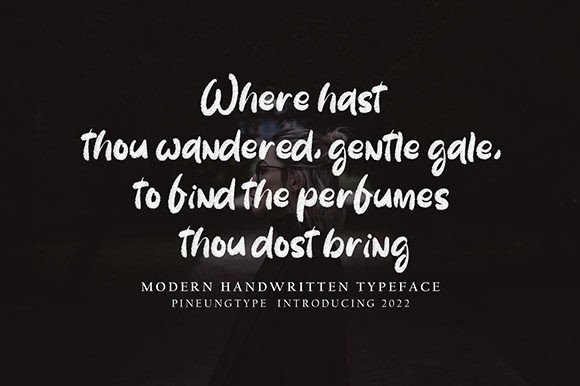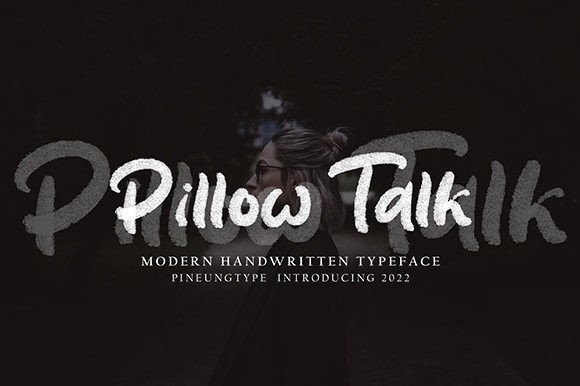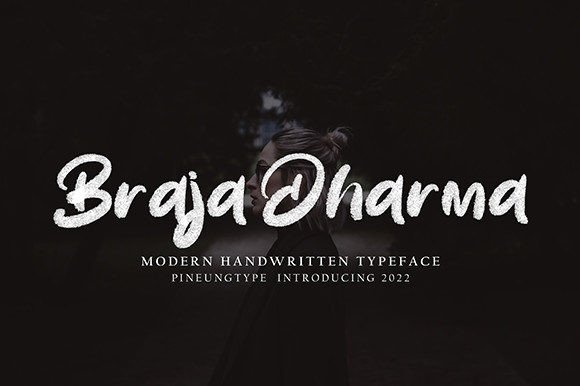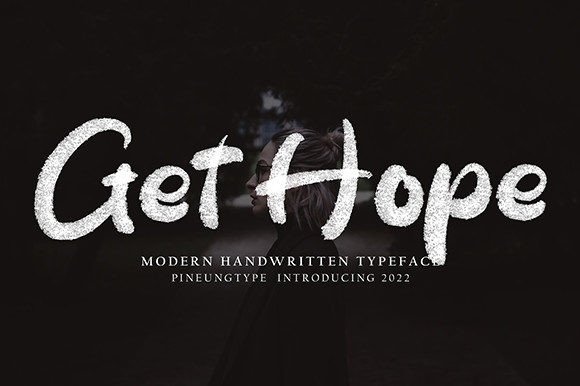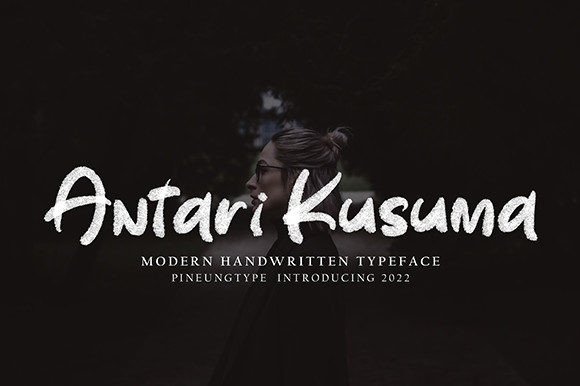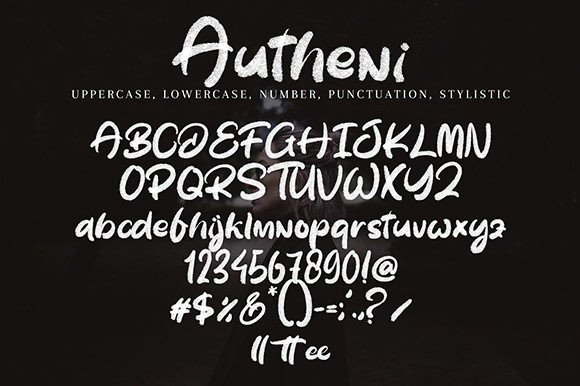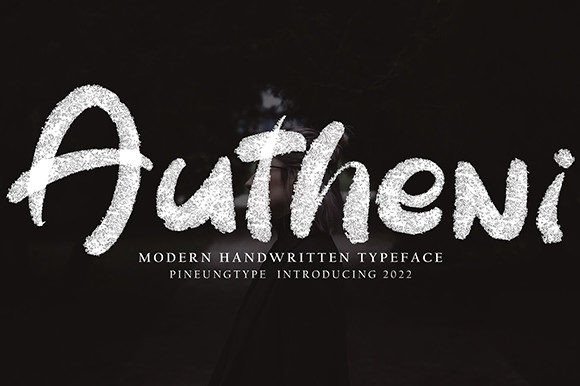
Introducing Autheni: The Elegant Handwritten Font for Your Creative Projects
Are you a designer or crafter looking for a stylish and elegant handwritten font to elevate your creative projects? Look no further than Autheni, a beautiful and versatile font that’s perfect for a wide range of applications. In this article, we’ll take a closer look at Autheni and explore its features, uses, and benefits.
What is Autheni?
Autheni is a stylish and elegant handwritten font that’s designed to add a touch of sophistication and whimsy to your designs. With its flowing lines, delicate curves, and refined letterforms, Autheni is the perfect choice for anyone looking to create beautiful, eye-catching text. Whether you’re working on a wedding invitation, a thank you card, or a business logo, Autheni is sure to impress.
Features of Autheni
So, what makes Autheni such a great font? Here are just a few of its key features:
- Elegant and refined design: Autheni’s elegant design makes it perfect for formal and informal projects alike.
- Handwritten feel: Autheni’s handwritten feel adds a touch of personality and whimsy to your designs.
- Versatile: Autheni can be used for a wide range of projects, from wedding invitations to business cards.
- Easy to read: Despite its elegant design, Autheni is still easy to read, making it perfect for body text and headlines.
Uses for Autheni
So, what can you use Autheni for? The possibilities are endless! Here are just a few ideas to get you started:
- Wedding invitations: Autheni is perfect for wedding invitations, adding a touch of elegance and sophistication to your designs.
- Thank you cards: Autheni’s handwritten feel makes it perfect for thank you cards and other personal correspondence.
- Quotes and posters: Autheni’s elegant design makes it perfect for quotes and posters, adding a touch of drama and flair to your text.
- Greeting cards: Autheni is perfect for greeting cards, adding a personal touch to your designs.
- Logos and branding: Autheni’s unique design makes it perfect for logos and branding, helping you to stand out from the crowd.
- Business cards: Autheni is perfect for business cards, adding a touch of elegance and sophistication to your professional correspondence.
Benefits of Using Autheni
So, why should you choose Autheni for your next project? Here are just a few benefits of using this beautiful font:
- Adds a personal touch: Autheni’s handwritten feel adds a personal touch to your designs, making them more engaging and relatable.
- Elevates your designs: Autheni’s elegant design elevates your designs, making them more sophisticated and eye-catching.
- Versatile: Autheni can be used for a wide range of projects, making it a great addition to your font library.
- Easy to use: Autheni is easy to use, even for those with limited design experience.
In conclusion, Autheni is a beautiful and versatile handwritten font that’s perfect for designers and crafters looking to add a touch of elegance and sophistication to their creative projects. With its elegant design, handwritten feel, and versatility, Autheni is sure to become a favorite in your font library. Whether you’re working on a wedding invitation, a business card, or a quote poster, Autheni is the perfect choice. So why wait? Download Autheni today and start creating beautiful, eye-catching text for your next project!